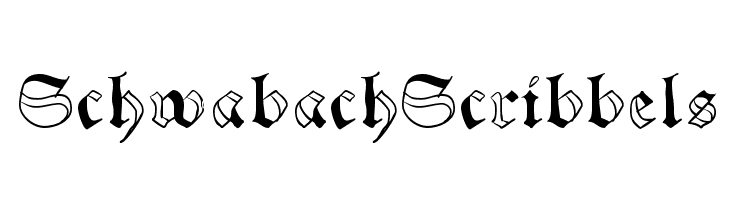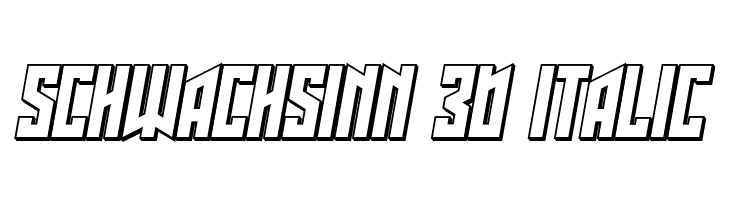
A traditional blackletter font with ornate, angular letterforms.
A bold, ornate blackletter font with sharp serifs and medieval flair.
An ornate and traditional font with intricate, decorative letterforms.
A classic blackletter font with intricate, angular strokes and a medieval feel.
A bold, 3D, italic font with sharp angles and a strong, modern look.
A bold, 3D geometric font with filled interiors and strong outlines.
Bold, 3D italic font with sharp angles and a futuristic style.
Bold, 3D geometric font with a futuristic and industrial style.
A bold, angular, and italic font with a dynamic, geometric style.